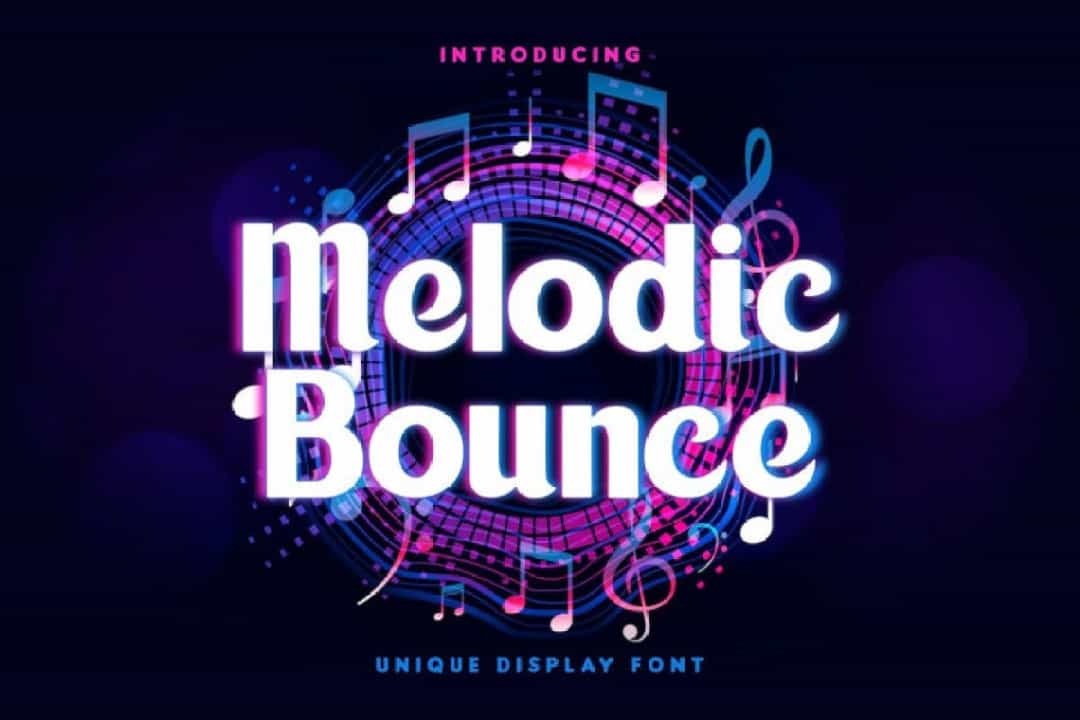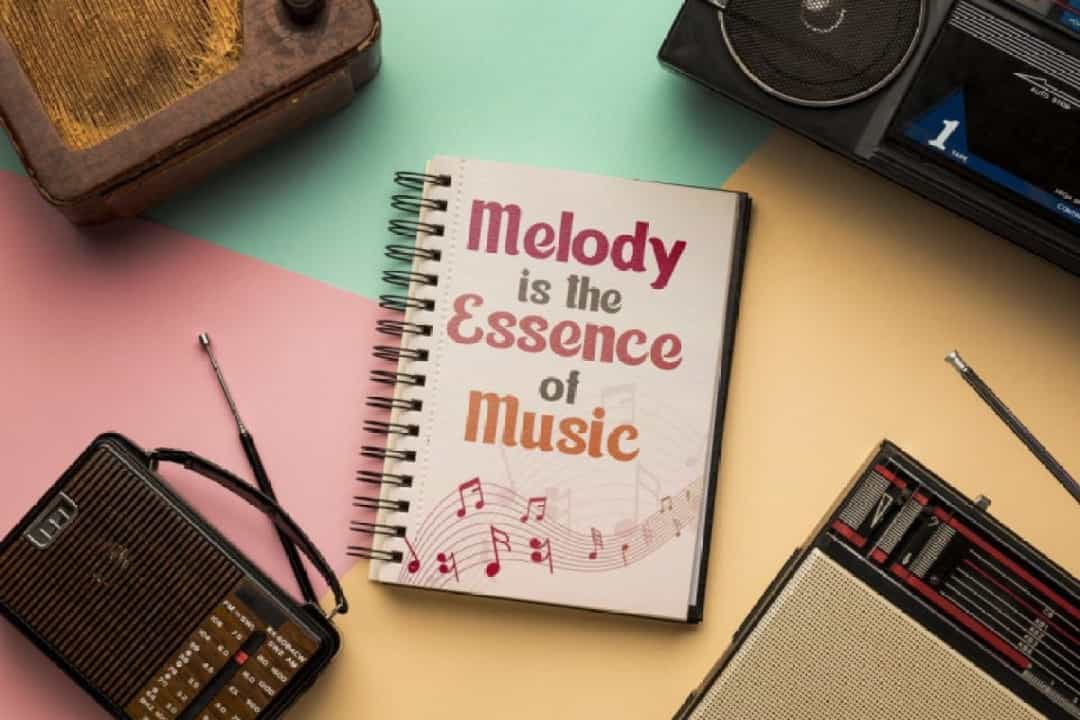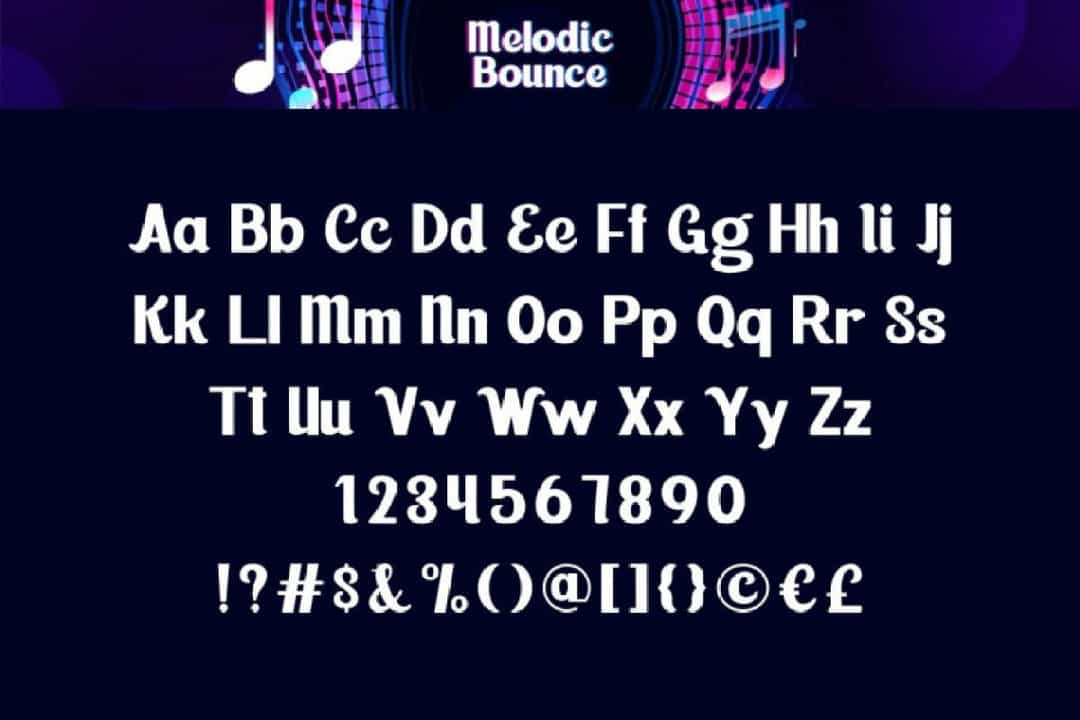
Discover Melodic Bounce Font, part of the Sans Serif Display collection—a versatile and unique font perfect for adding a personal touch to your projects. Download it for free and enjoy crafting designs with style, from invitations to social media posts. This font is available exclusively for personal use, giving you the freedom to create without limits. Unlock your creativity with Melodic Bounce Font today!
Melodic Bounce Font is an innovative and contemporary display font inspired by disco music. Perfect for fashion, book events such as homeware, children’s wear music publishing or any industry needing an unforgettable musical style this font offers endless creative potential for all industries and purposes.